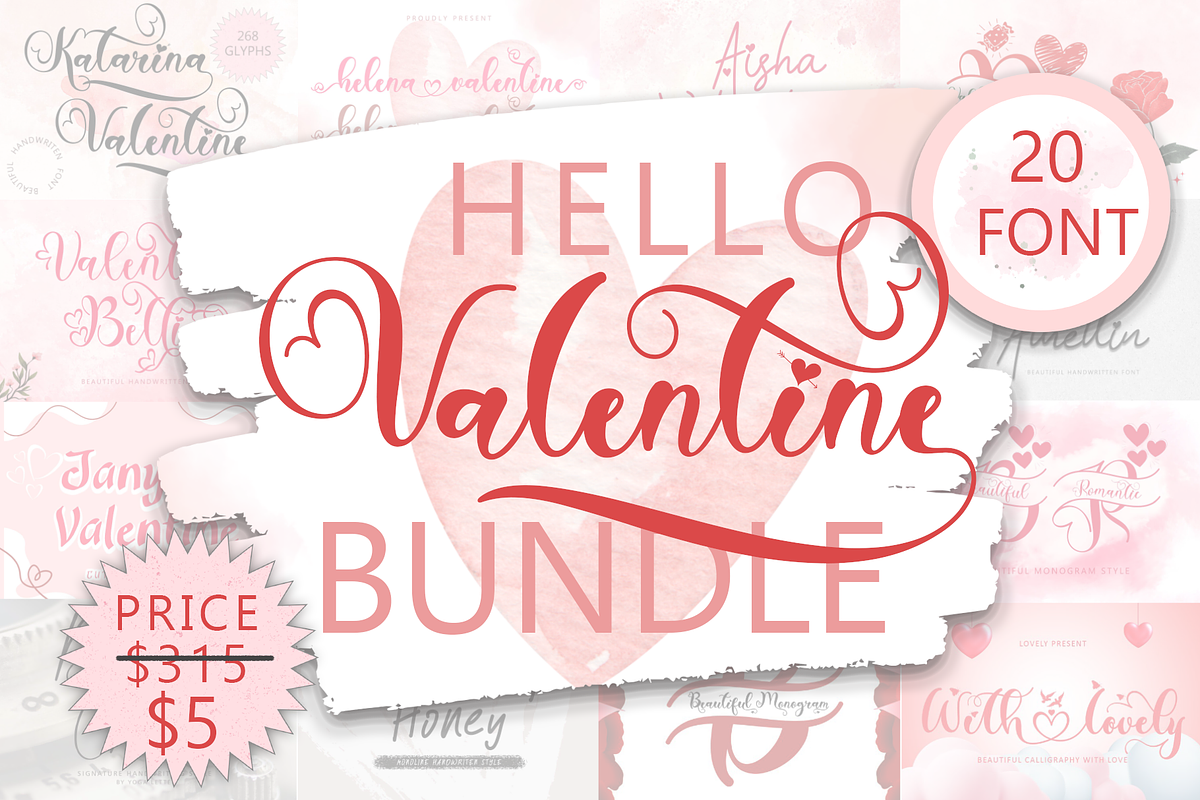
Hello Valentine Bundle
This set includes 20 font beautiful and popular fonts !!! Katarina Valentine Helena Valentine Aisha Valentine Delion Monogram Valentine Bellia Dainty Valentine Beautiful Claudia Beautiful Athellin Janytha Valentine Anetha Valentine Amazing Smile Beautiful Romantic Monogram Bonny Valentine With Valentine Beautiful Lovely Monogram Boutique Chello Something Honey Beautiful Catherine monogram Beautiful Sweet Monogram Astone Classic
This bundle is perfect for a variety of projects such as christmas, weddings, designs, branding, logos, invitations, stationery, social media posts, advertisements, product packaging, product designs, labels, photography, valentine, easter, mother day, father day, watermarks, special events or whatever.